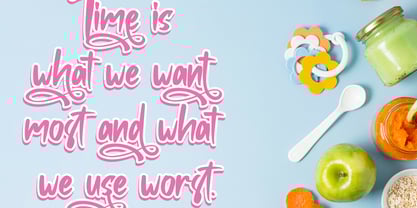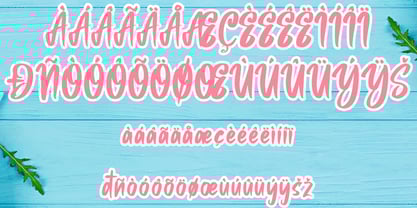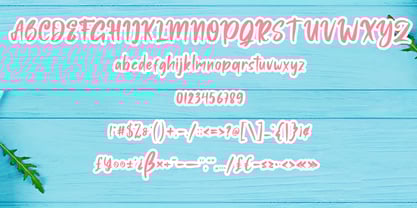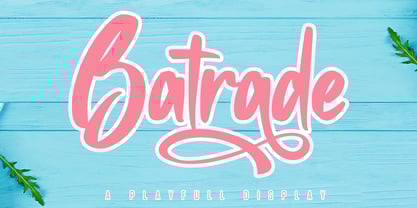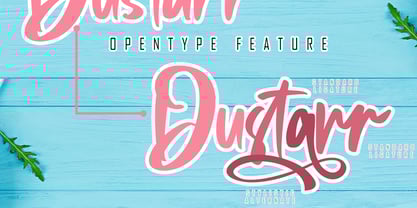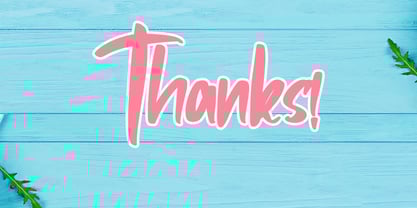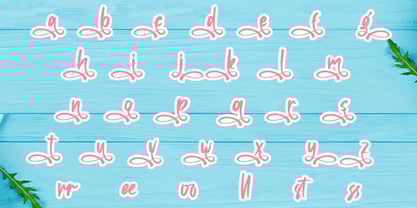
Batrade
by Skiiller Studio
The Batrade Font Family was designed by Irfan Mahmudin and published by Skiiller Studio. Batrade contains 1 styles.
Batrade is a playful display font with smooth curves and bold, friendly shapes that instantly grab attention. Designed to feel fun, modern, and expressive, this font is perfect for branding, packaging, posters, children’s designs, social media graphics, logos, stickers, and eye-catching headlines. Its rounded letterforms and lively style make any design feel cheerful and approachable, while still remaining clear and readable across both digital and print projects.
Designers: Irfan Mahmudin
Publisher: Skiiller Studio
Foundry: Skiiller Studio